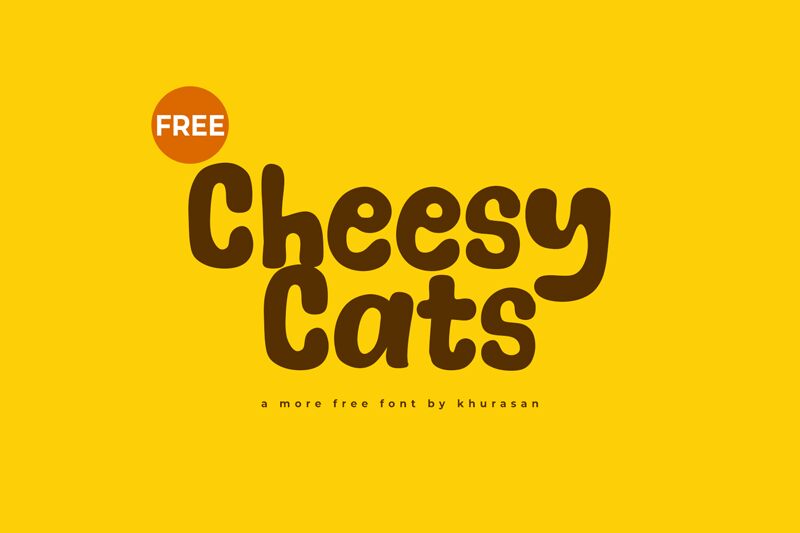
Cheesy Cats, a playful and whimsical font designed by Khurasan, captures the essence of a delightful cartoon world. With its bold, exaggerated strokes and quirky, hand-drawn aesthetic, this display font exudes a sense of childlike wonder and charm. The rounded edges and slightly uneven lines lend a touch of playfulness, while the overall bold weight provides a strong, confident presence. Cheesy Cats is a captivating choice for projects seeking to convey a lighthearted, fun-loving mood, from children's books and greeting cards to social media posts and product packaging.
This versatile font shines in a variety of applications, from playful branding and whimsical event invitations to eye-catching headlines and playful logo designs. Its distinctive style makes it an ideal pick for adding a touch of playfulness and character to any project, whether it's a vibrant children's book cover or a quirky social media campaign.
Cheesy Cats